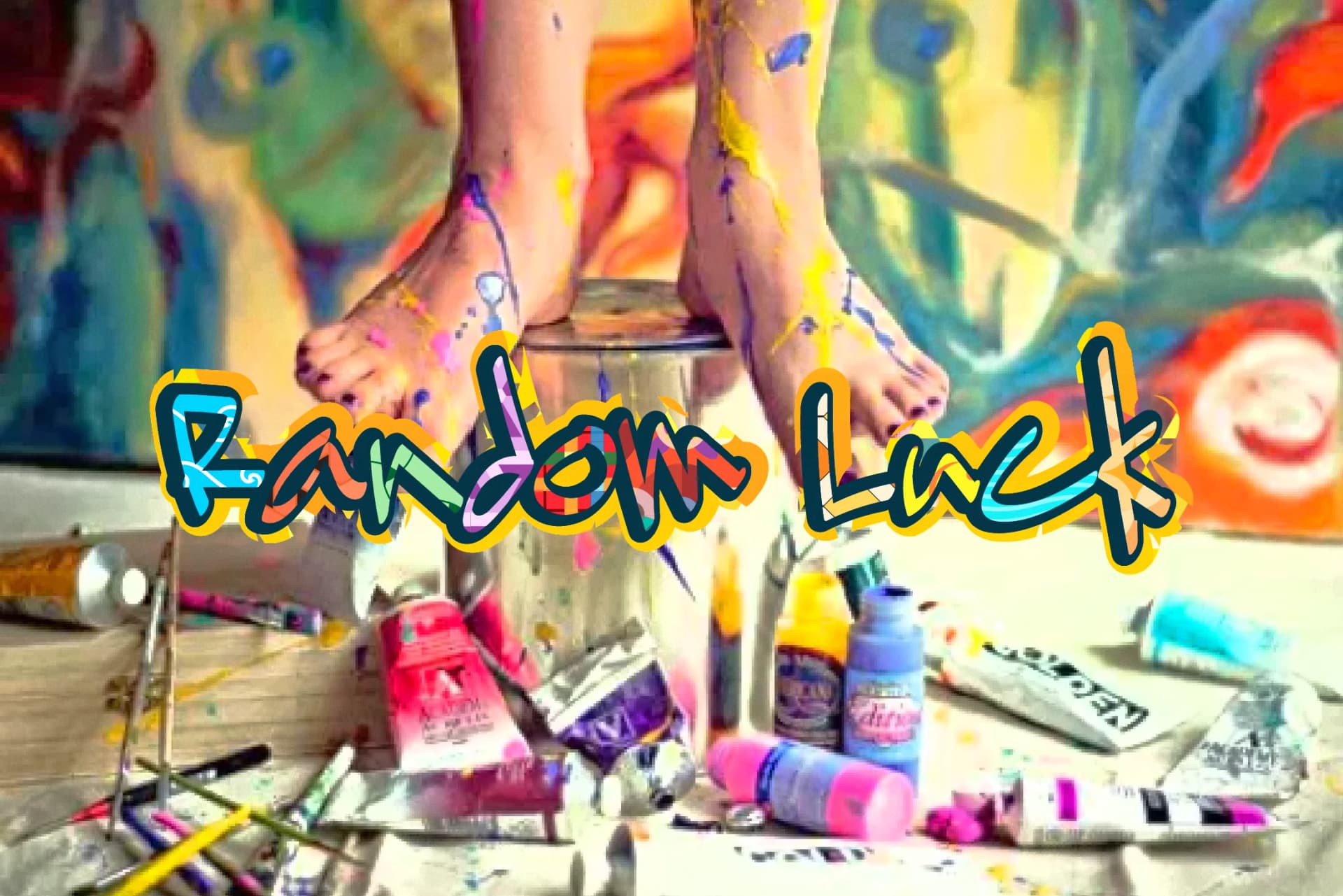
About Random Luck Font
Random Luck Font by KPH is a fluid script typeface that captures authentic handwritten quality with organic, naturally imperfect letterforms. The design balances genuine hand-drawn character with clear readability, delivering warmth and personality without sacrificing legibility across different sizes and applications.
This typeface excels in applications where personal touch matters. Wedding invitation suites benefit from its casual elegance, which reads beautifully in both display and body text settings. The font equally serves boutique brand identities seeking artistic credibility, Etsy product labels wanting handmade authenticity, and custom event signage that needs visual distinction. Social media graphics gain an inviting, approachable quality, while packaging designs become more memorable when carrying this humanized touch. The typeface's organic flow prevents designs from feeling overly polished or corporate, instead suggesting genuine craft and individuality.
Random Luck Font is a script font that shines as a display or heading face. Pair it with a clean sans-serif or serif font for body text — the contrast creates a clear hierarchy while the two styles stay balanced and easy to read.
Random Luck Font
by KPH